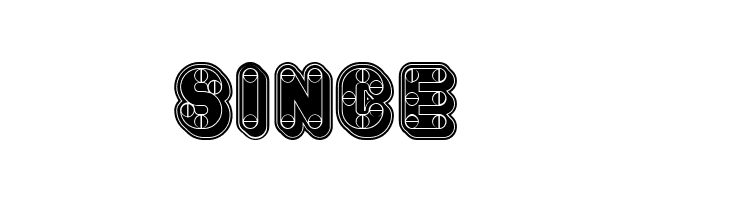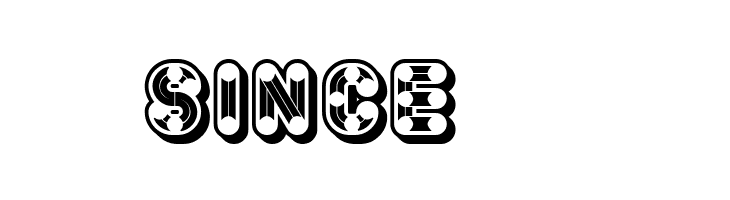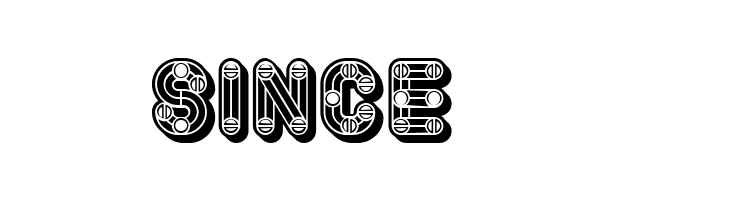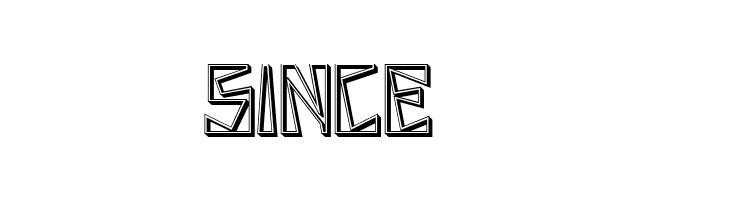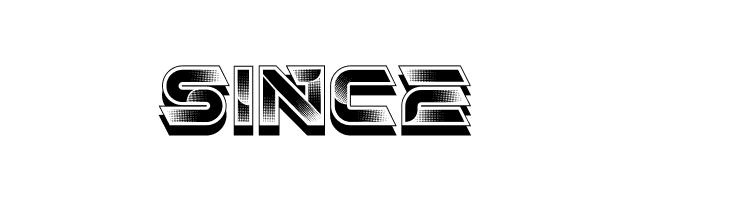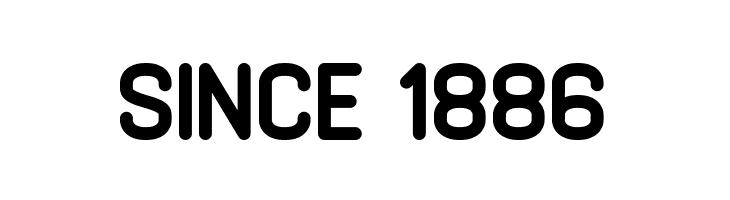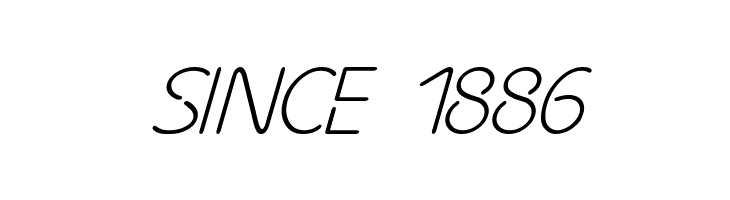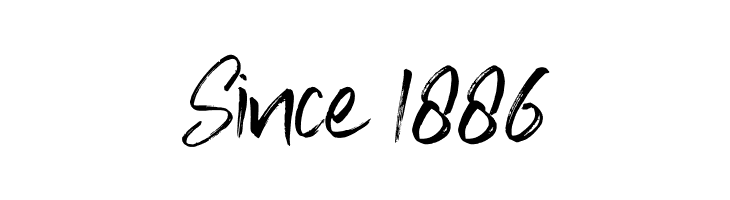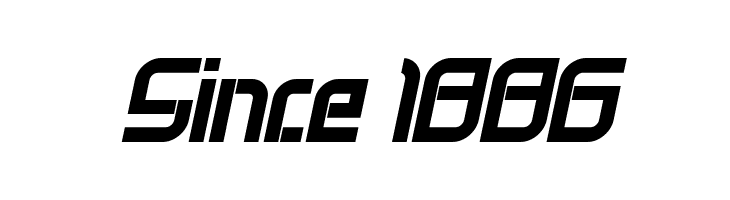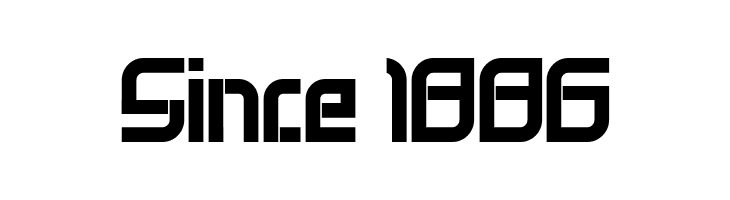
A bold, industrial font with intricate line patterns and a mechanical aesthetic.
A bold, playful font with a spotty pattern and thick outlines.
A bold, decorative font with a futuristic and dynamic design.
A dynamic brush-style font with expressive, energetic strokes.
A bold, futuristic font with geometric shapes and a three-dimensional effect.
A sleek, modern italic font with a light and airy design.
A futuristic, geometric font with angular letterforms and a modern aesthetic.
A bold, italic, futuristic font with angular, streamlined characters.
A bold, geometric font with a three-dimensional, angular design.
A bold, modern sans-serif font with rounded edges and uniform stroke width.